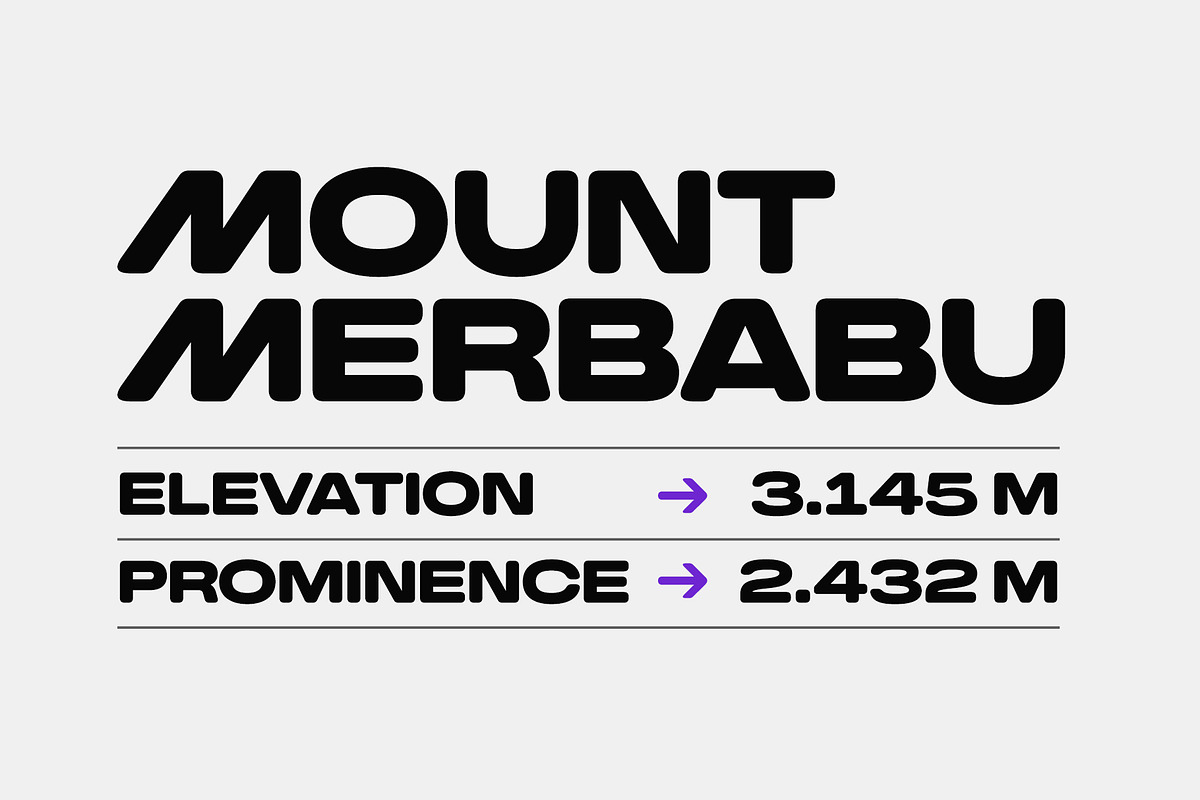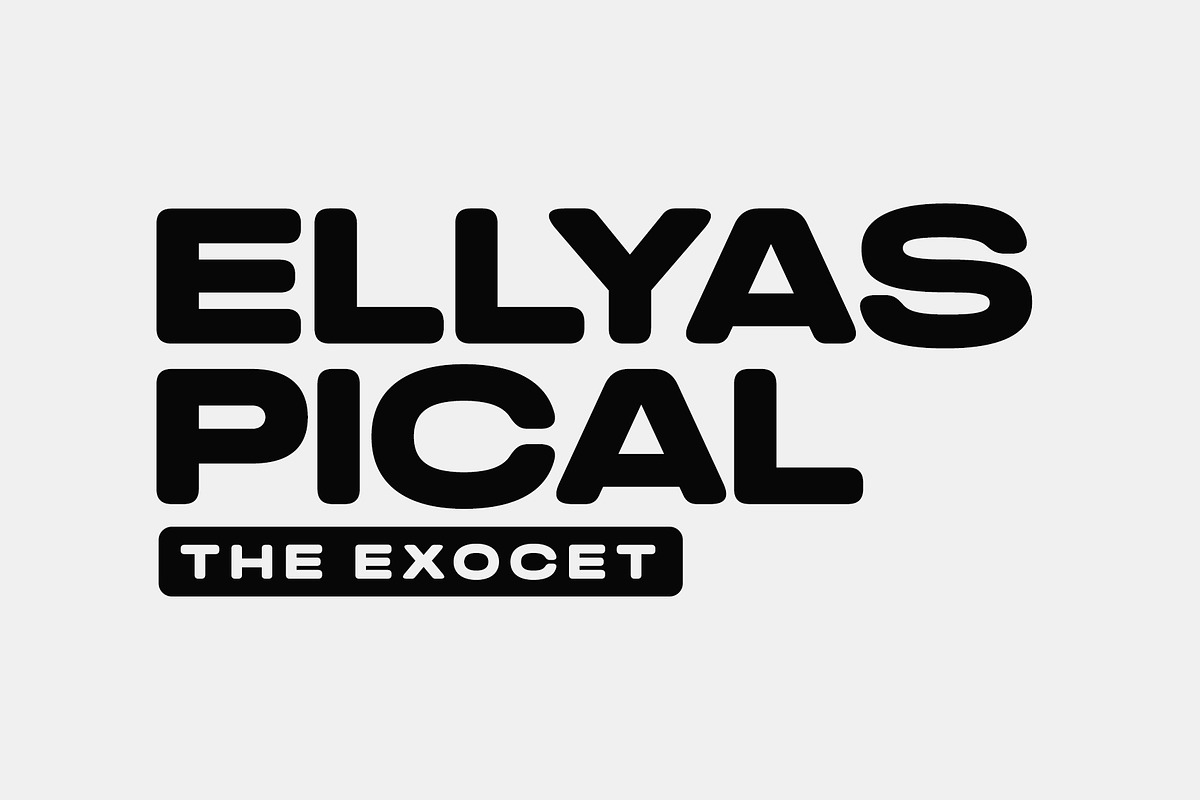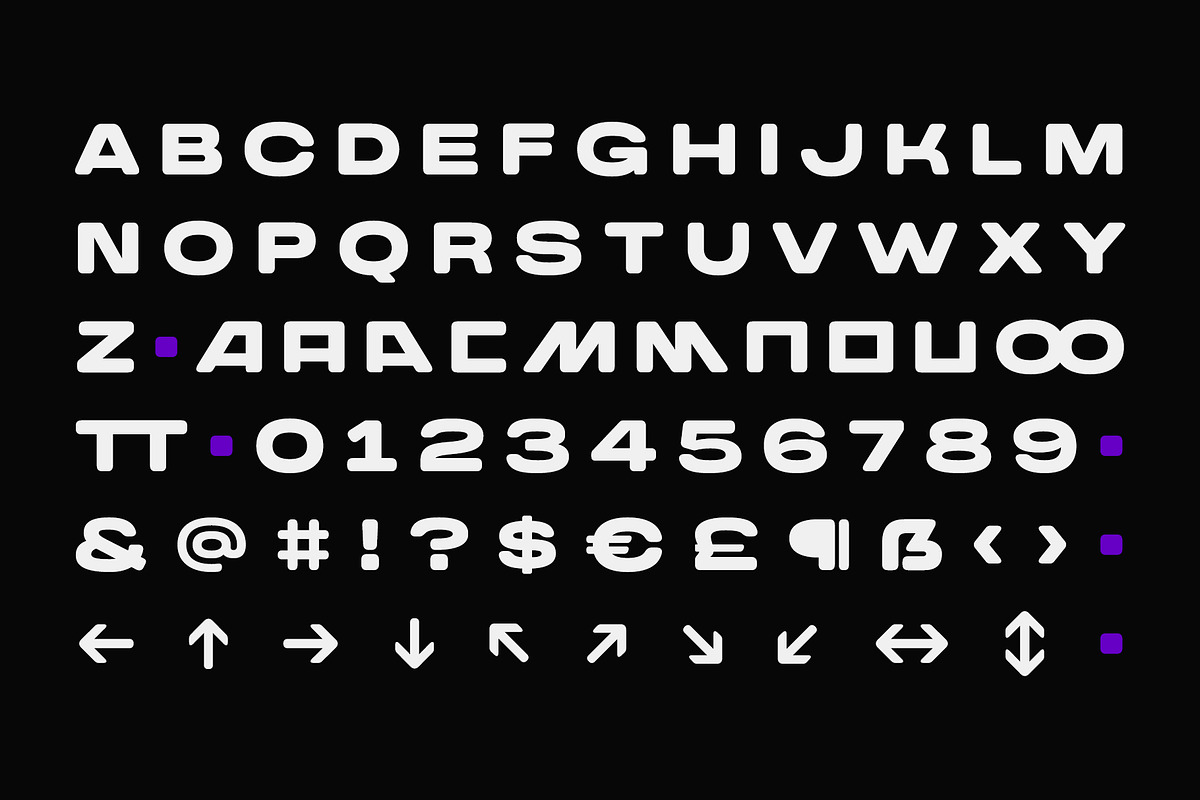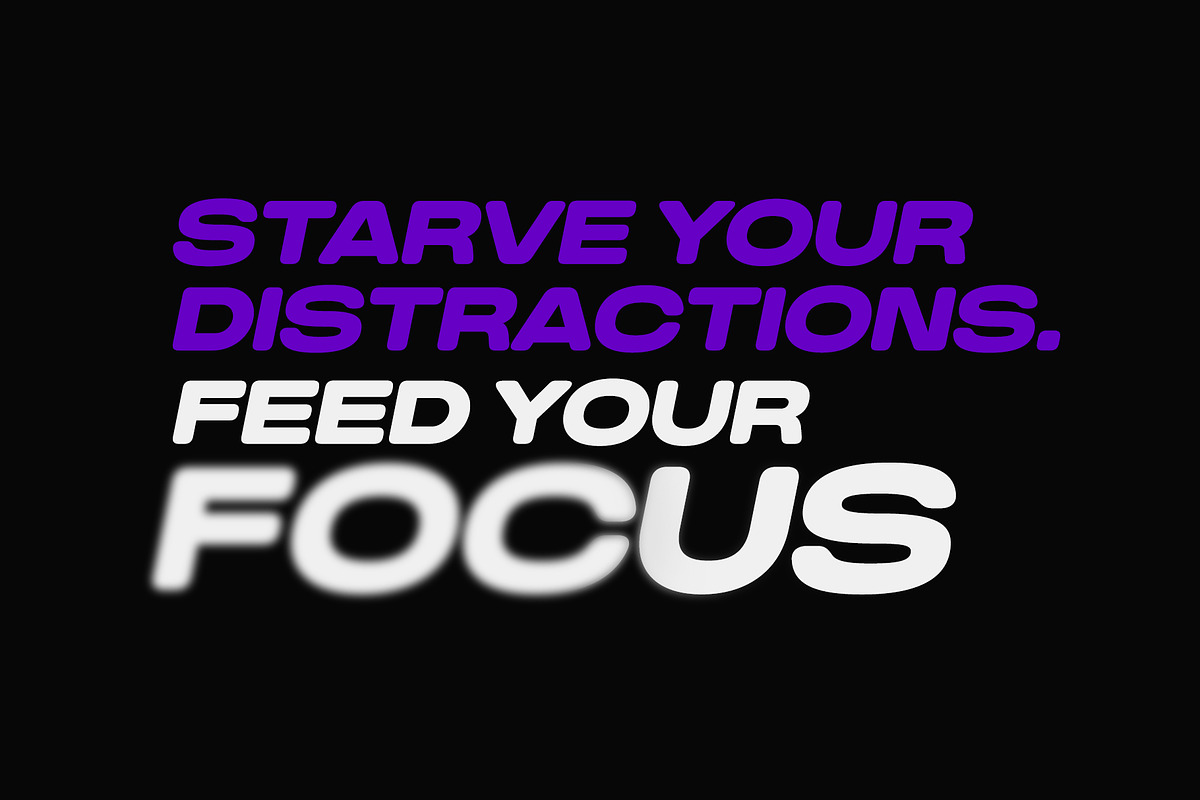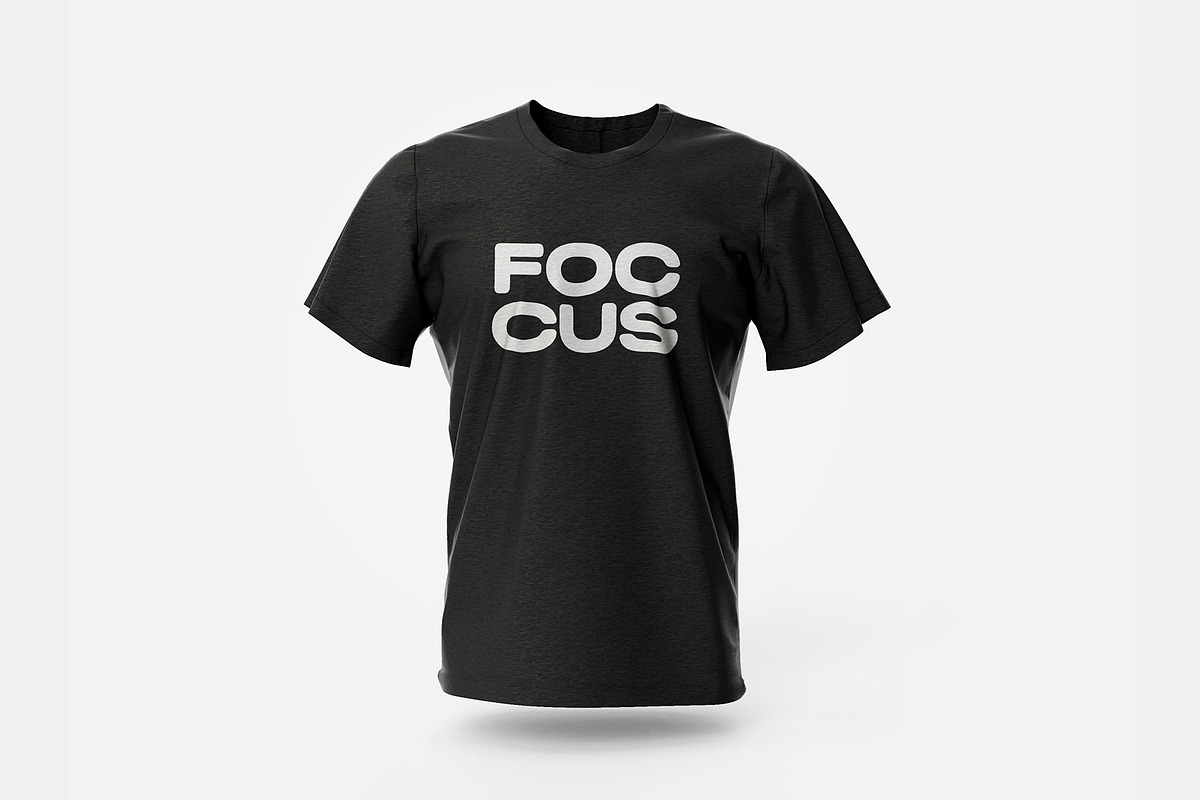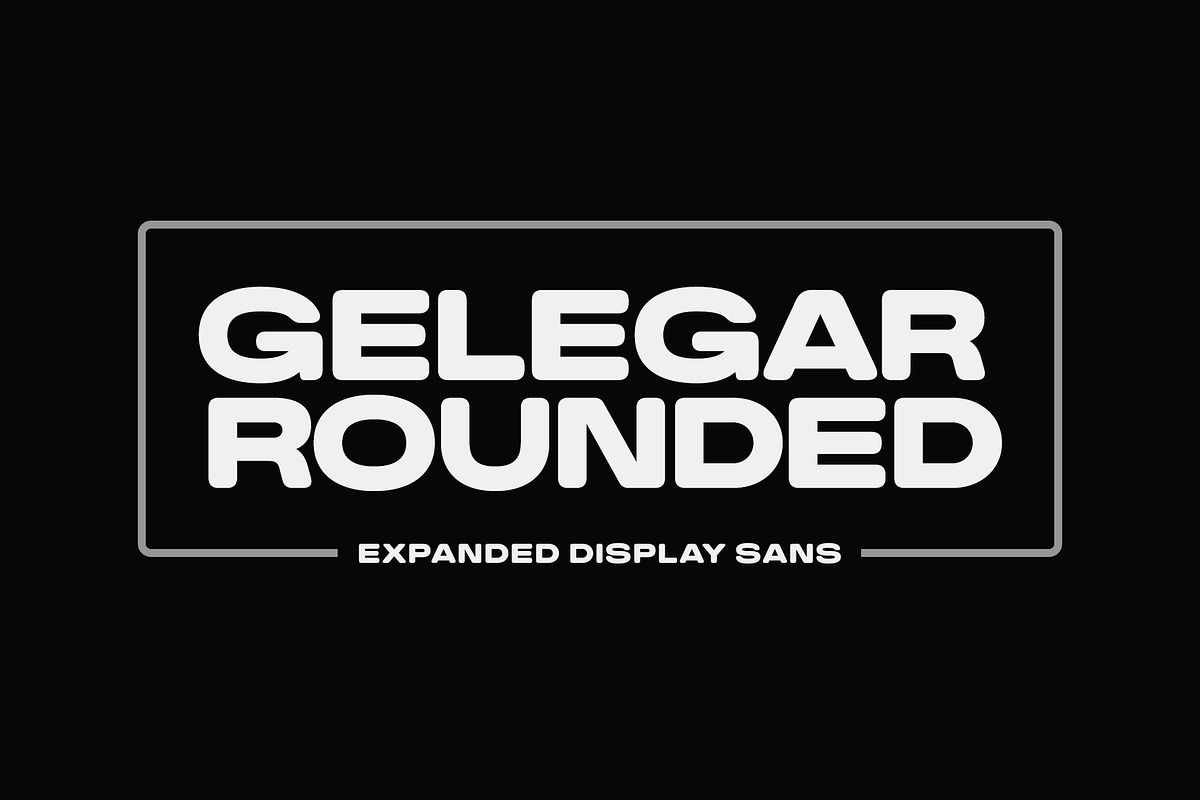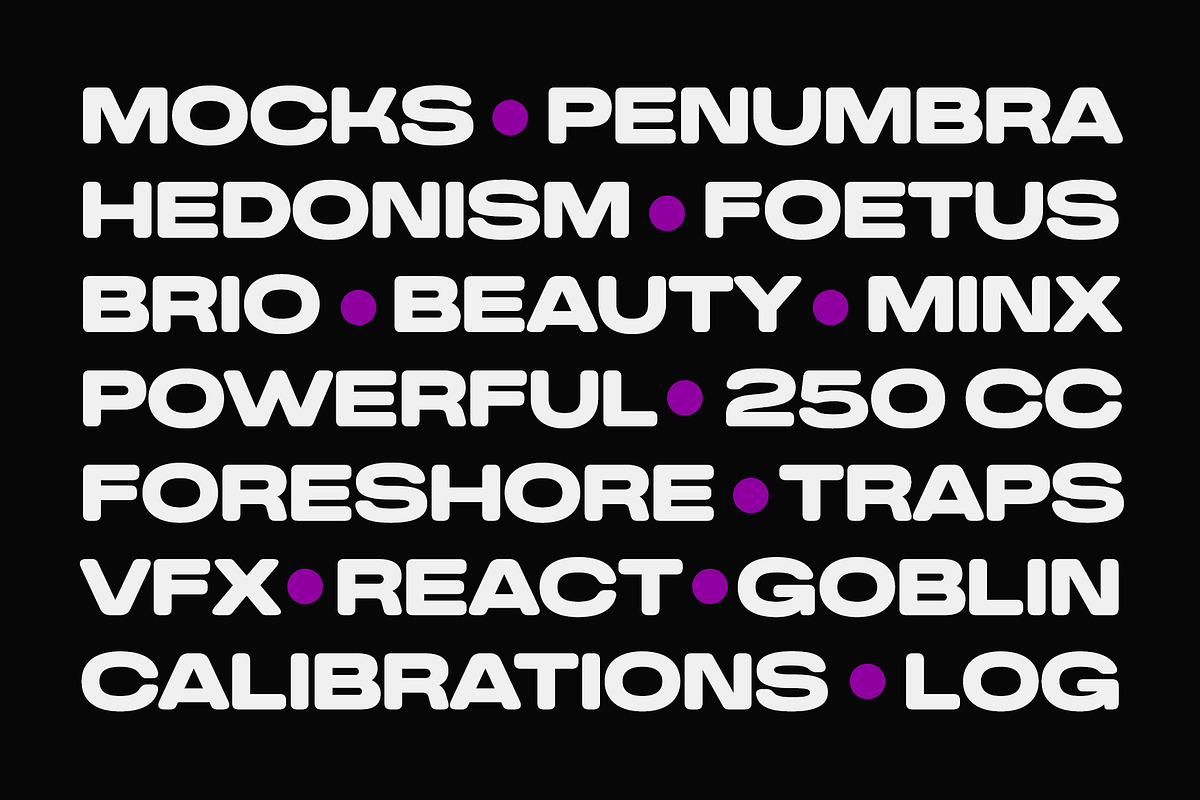
Gelegar Rounded
Gelegar Rounded is a rounded version of Gelegar Expanded; part of Gelegar font family. Introducing Gelegar, the extraordinary ultra-wide display sans serif font meticulously crafted for commanding visual and emotional impact. Gelegar offers three distinctive styles – expanded regular, rounded, and press – each exuding its own unique character to suit your creative vision.
Whether you're designing posters, social media posts, attention-grabbing headlines, monumental titling, or large-format prints, Gelegar ensures you stand out from the crowd. Embrace the font that demands attention and amplifies your message. Unleash Gelegar and seize the spotlight wherever your creativity takes you.